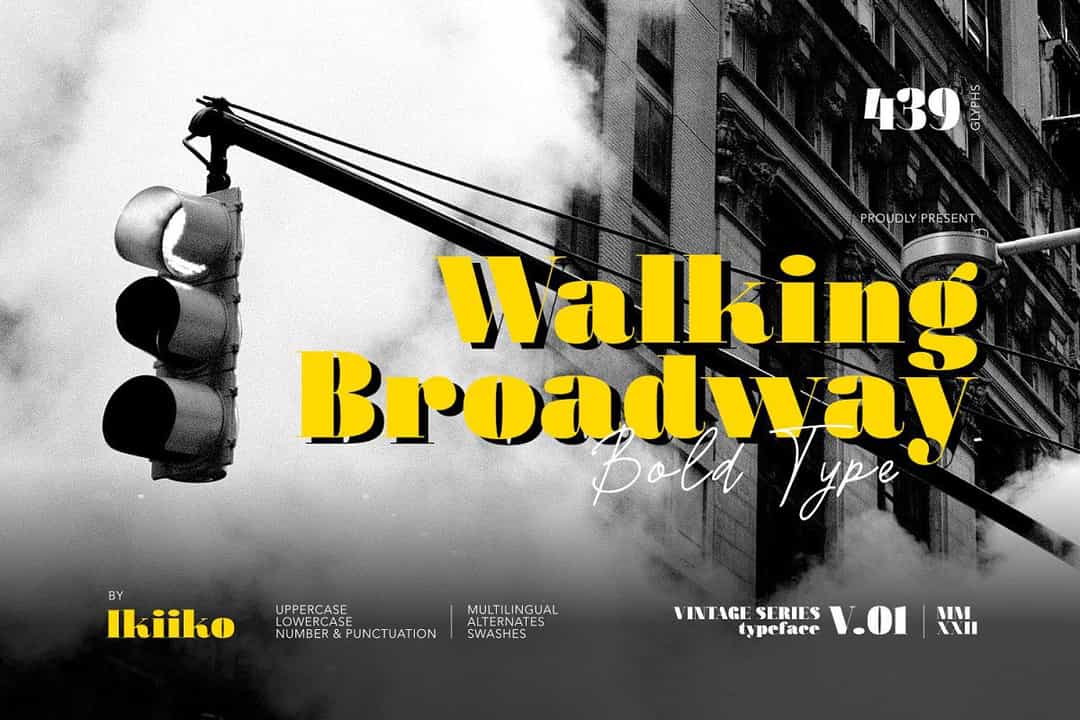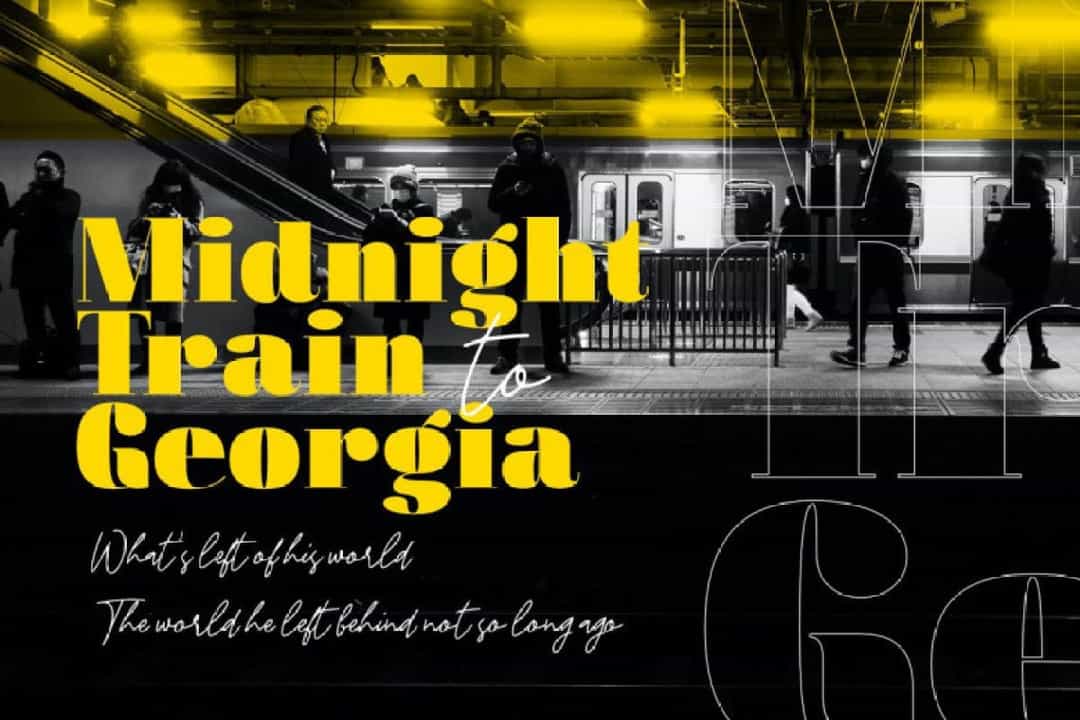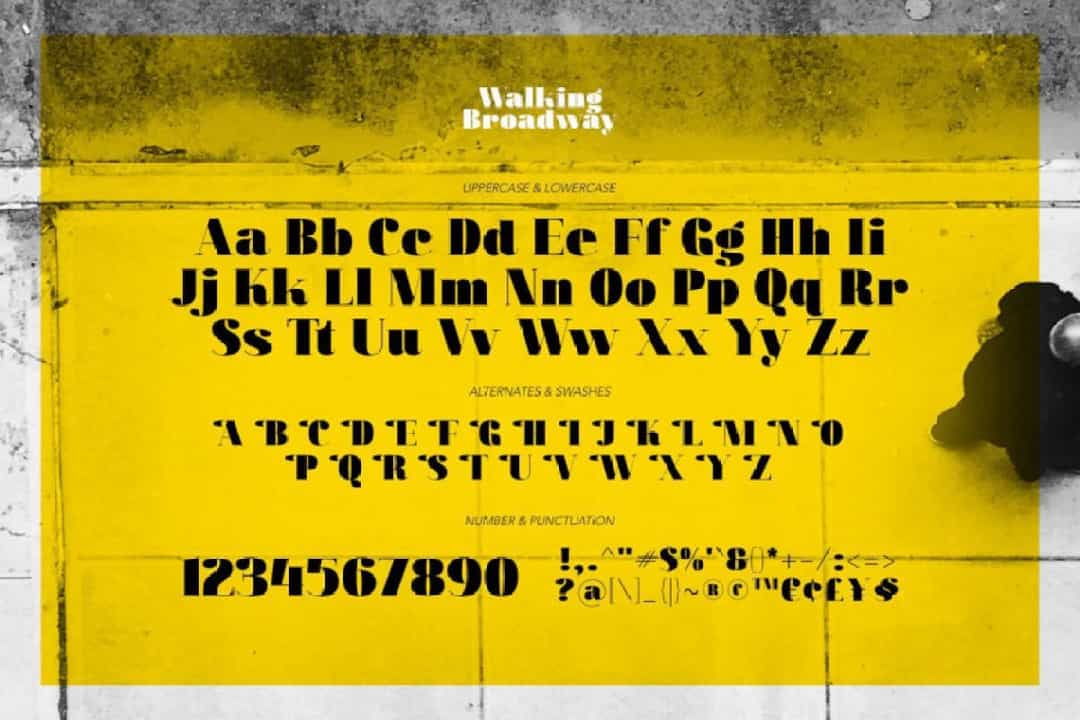
Walking Broadway by Ikiiko is an elegant and chic show serif typeface designed and released. Featuring its signature bold style and PUA encoding for easy access, Walking Broadway can be used to brand logos on packaging products, clothing posters and much more!